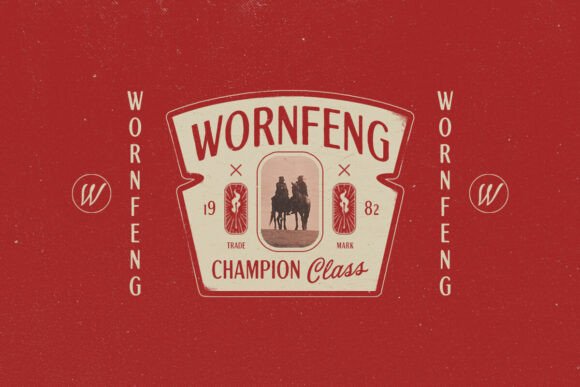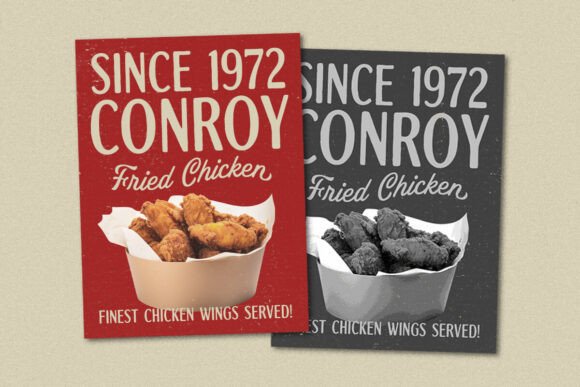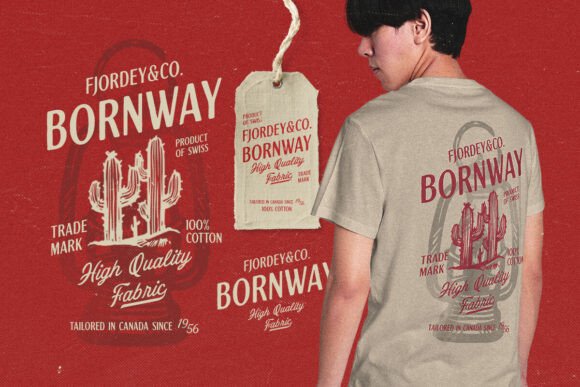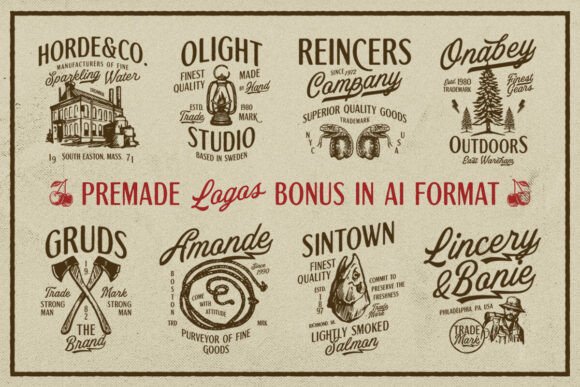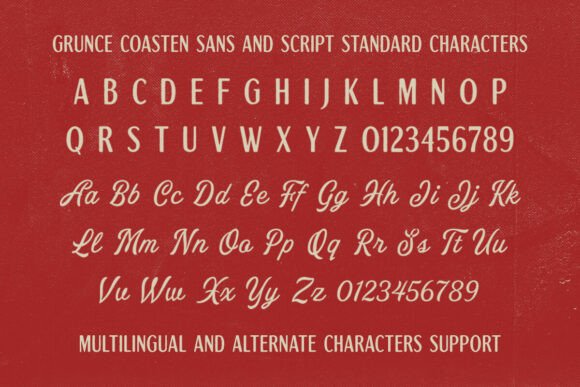
Grunce Coasten Font: Elevate Your Designs with a Touch of Classic Elegance
Are you tired of using the same old fonts in your designs? Look no further than Grunce Coasten, a vintage font duo that combines a beautiful script with a clean sans serif, all with a touch of classic look and feel. This stunning font pair is perfect for designers and crafters looking to add a unique and sophisticated touch to their work.
What is Grunce Coasten Font?
Grunce Coasten is a carefully crafted font duo that consists of two complementary fonts: a script font and a sans serif font. The script font boasts elegant, cursive lines that evoke a sense of nostalgia and sophistication, while the sans serif font provides a clean and modern contrast. Together, they form a versatile font pair that can be used in a wide range of design applications.
Key Features of Grunce Coasten Font
- Vintage charm: Grunce Coasten’s script font has a distinctly vintage feel, perfect for designs that require a touch of classic elegance.
- Pairing versatility: The sans serif font provides a clean and modern contrast to the script font, making it easy to use in a variety of design contexts.
- Bonus illustrations: The Grunce Coasten font package comes with bonus illustrations, providing you with even more creative possibilities.
Grunce Coasten font is perfect for designers and crafters looking to create stunning visual content for a variety of applications, including:
- Logos and branding: The unique combination of script and sans serif fonts makes Grunce Coasten an excellent choice for logos and branding materials.
- Headlines and signage: The font’s classic look and feel make it perfect for headlines and signage, adding a touch of sophistication to any design.
- Invitations and greeting cards: Grunce Coasten’s elegant script font is ideal for formal invitations and greeting cards, such as wedding cards and holiday greetings.
- Packaging and labels: The font’s versatility makes it suitable for packaging and labels, adding a touch of elegance to any product.
- Fashion and beauty: Grunce Coasten’s classic look and feel make it perfect for fashion and beauty brands, adding a touch of sophistication to any design.
Why Choose Grunce Coasten Font?
With so many fonts available, why choose Grunce Coasten? Here are just a few reasons:
- Unique and distinctive: Grunce Coasten’s vintage charm and classic look and feel make it a unique and distinctive font pair that will set your designs apart.
- High-quality design: The font has been carefully crafted to ensure high-quality design, with clean lines and elegant curves.
- Easily readable: The sans serif font is easily readable, making it perfect for body text and other applications where clarity is essential.
If you’re looking for a font pair that combines vintage charm with modern versatility, look no further than Grunce Coasten. With its elegant script font and clean sans serif font, this stunning font duo is perfect for designers and crafters looking to add a touch of classic elegance to their work. Whether you’re creating logos, headlines, invitations, or packaging, Grunce Coasten is the perfect choice.